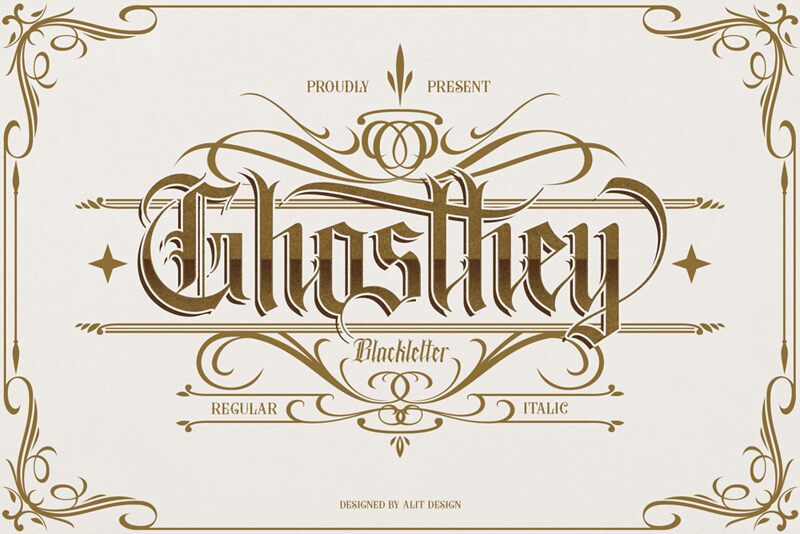
Ghosthey, the gothic font designed by Alit Design, exudes a medieval charm that transports you to a different era. Its semi-light weight and condensed width add a modern twist to the classic blackletter style. Perfect for book covers, movie titles, and posters with a historical or fantasy theme, Ghosthey is versatile enough to suit any project that requires an edgy yet sophisticated touch. Its unique personality is sure to make your design stand out from the crowd. Try Ghosthey today and unleash the ghostly allure of this captivating font!